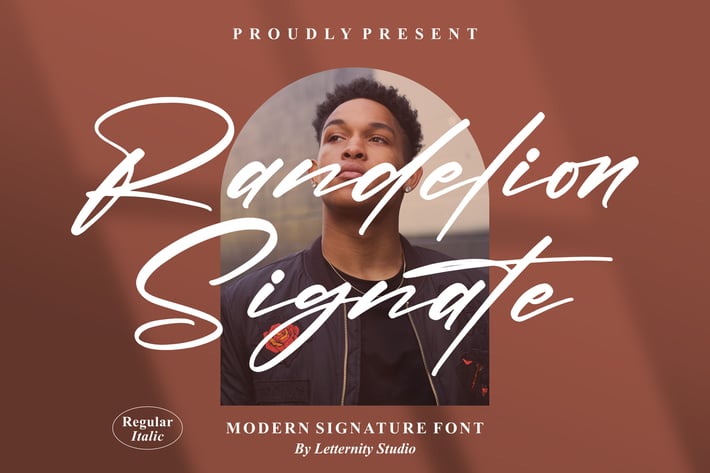
Randelion Signature Font
Randelion Signature is a clean, modern signature script designed to elevate both digital and print work. Its confident strokes and smooth flow make names, quotes, and short headlines feel personal yet polished. Great legibility and balanced contrast help it read beautifully across posters, social content, branding assets, and personal projects.
+ Regular & Italic styles
+ Smooth, natural signature strokes with modern flair
+ Stylistic alternates & standard ligatures for variety
+ Uppercase, lowercase, numerals & punctuation
+ Refined kerning and baseline for professional results
Perfect for:
+ Branding & logos
+ Social media posts & story covers
+ Posters & magazine-style titles
+ Business cards & stationery
+ Invitations & event collateral
+ Product packaging & labels
+ Quotes, signatures & watermarks